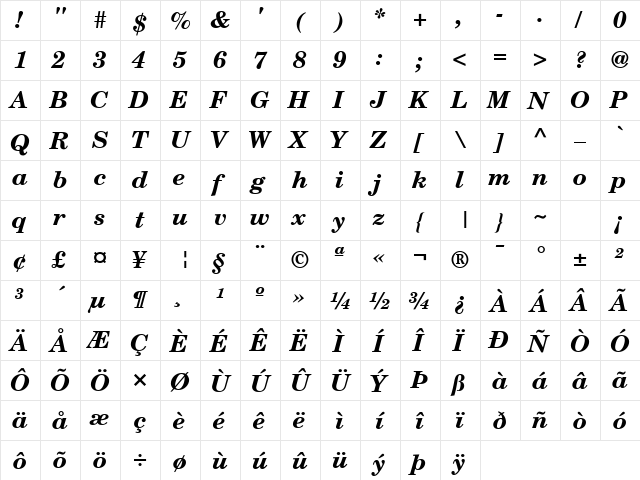
NewMilleniumSchlbkSH Bold Italic Font Preview
Design Context for NewMilleniumSchlbkSH Typeface
NewMilleniumSchlbkSH offers clean, dependable letterforms without strong stylistic allegiance, making it a practical choice for designers who need flexibility. The dynamic lean of this cut emphasises speed and emphasis in any layout. Its bold stroke weight gives it real presence on the page.
Pro Tip: Try NewMilleniumSchlbkSH for annotation and caption copy alongside an upright companion — the contrast in angle creates a dynamic but ordered typographic system.